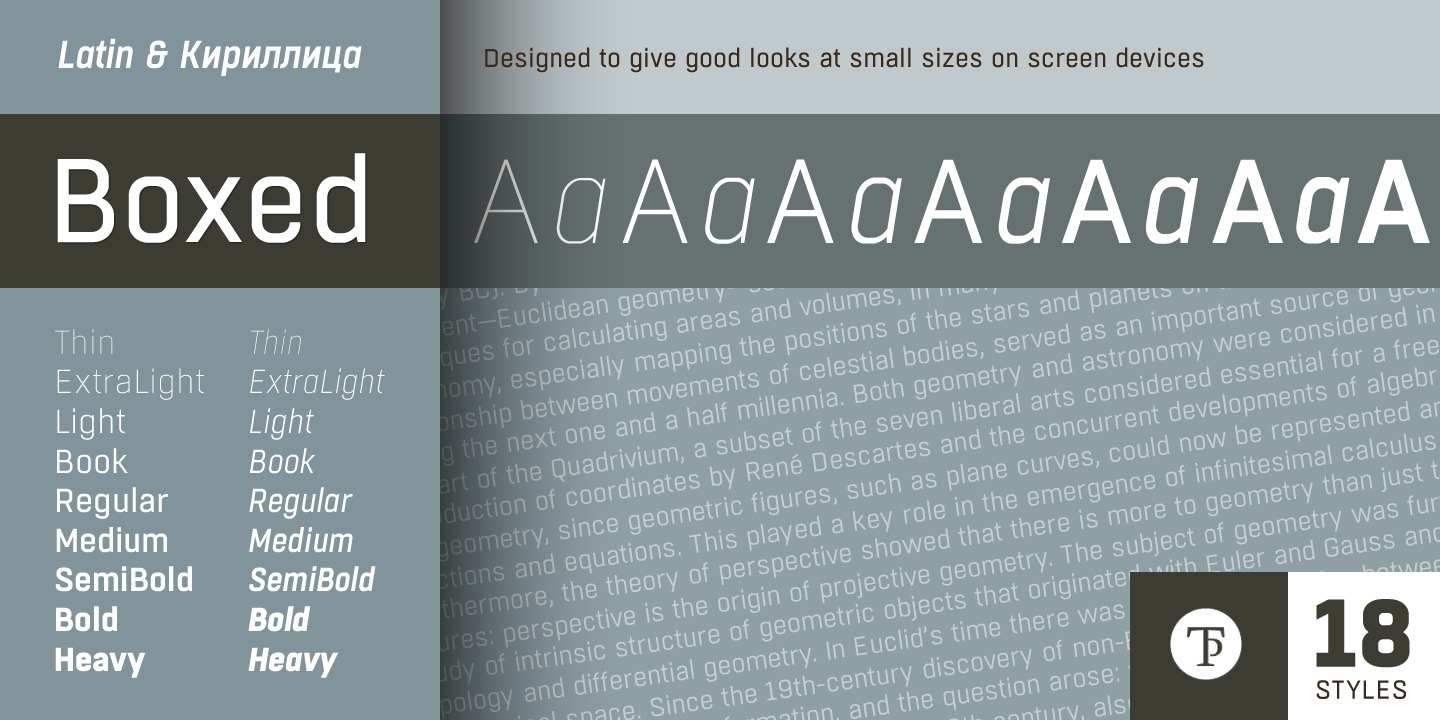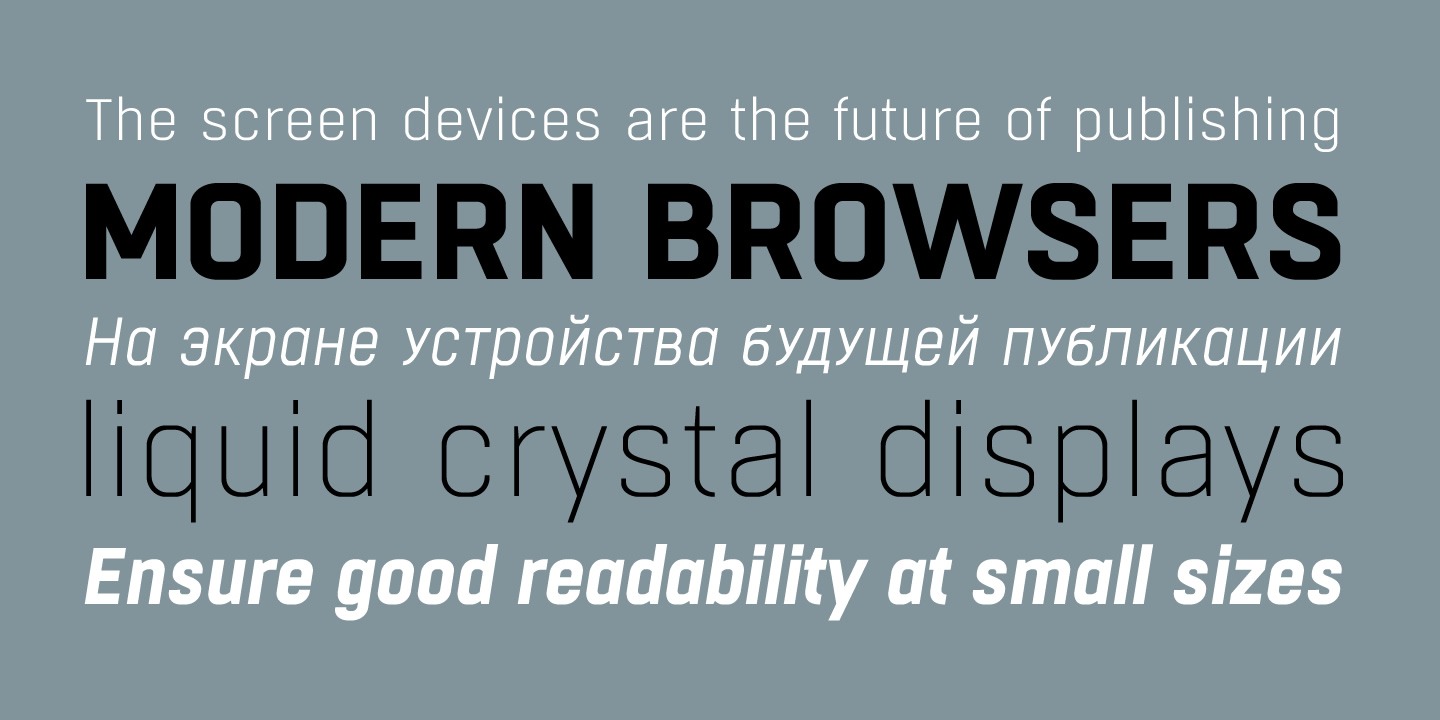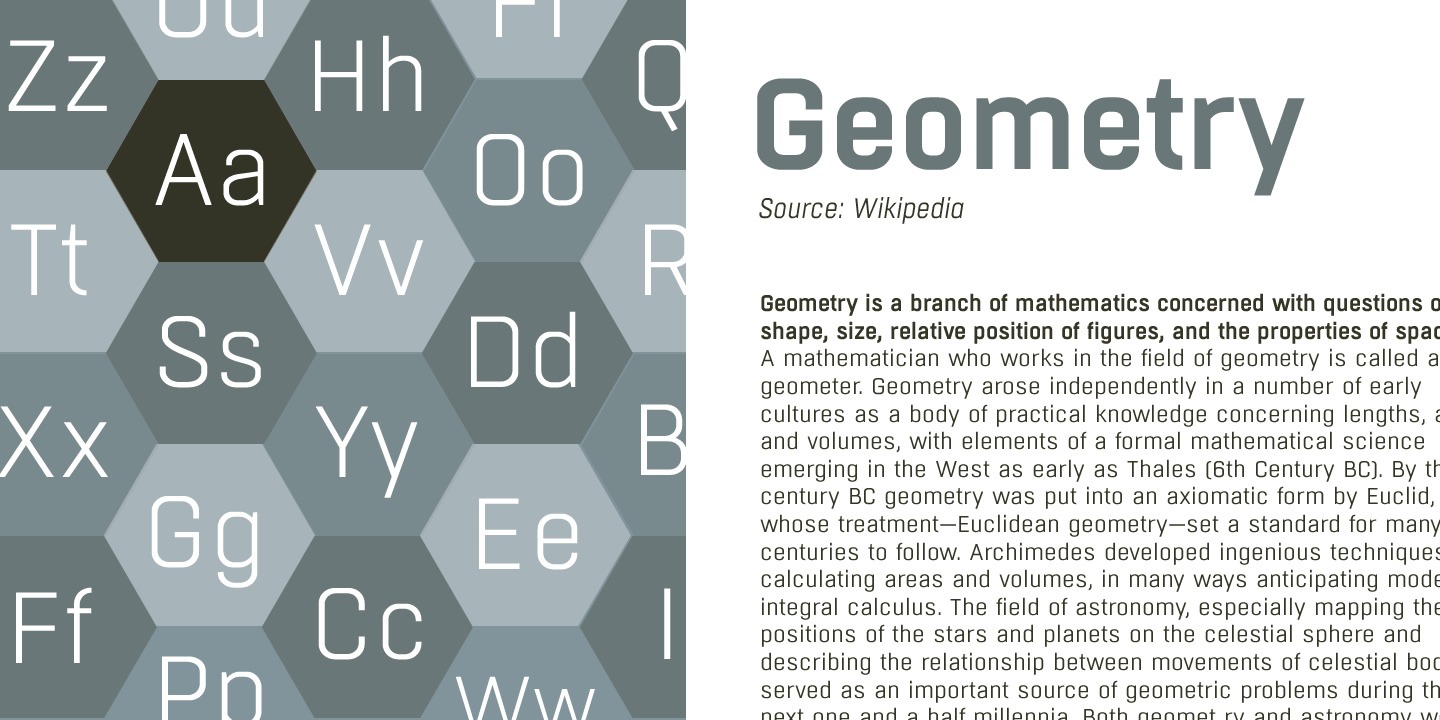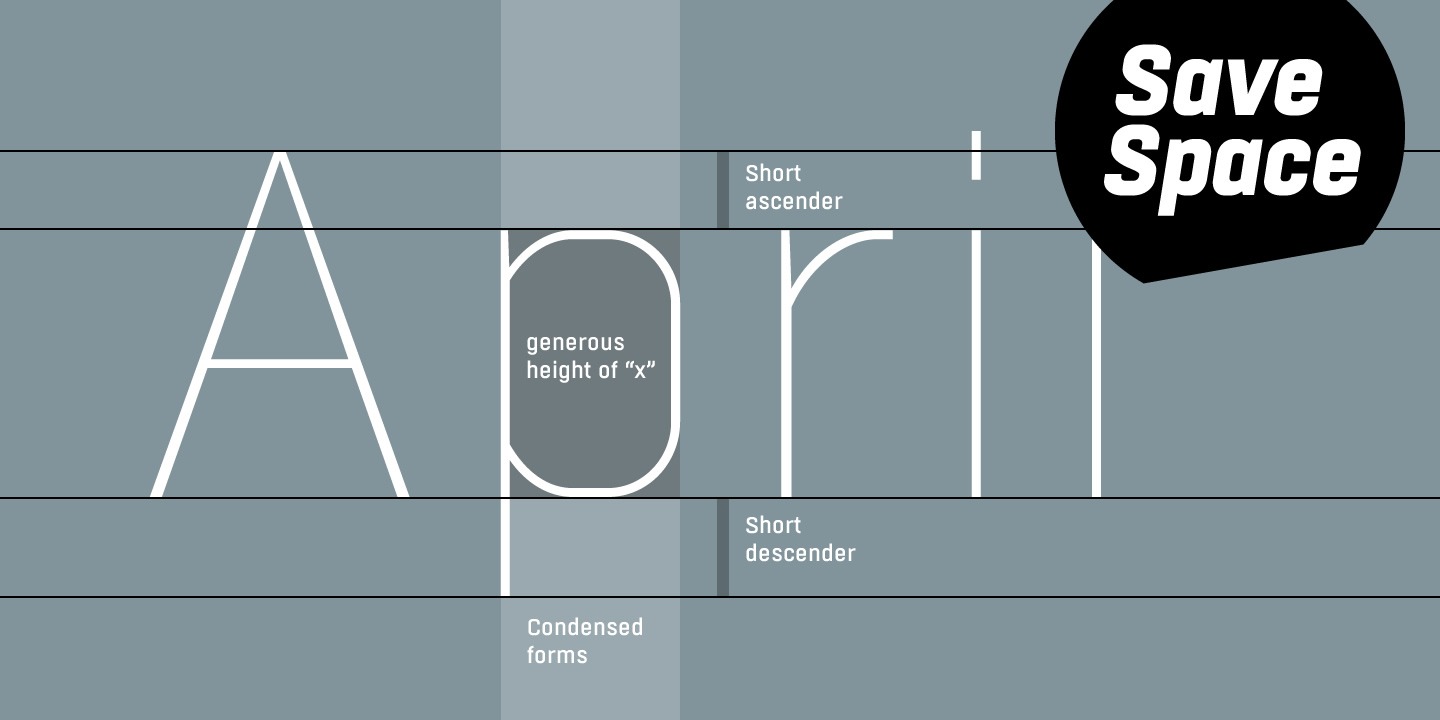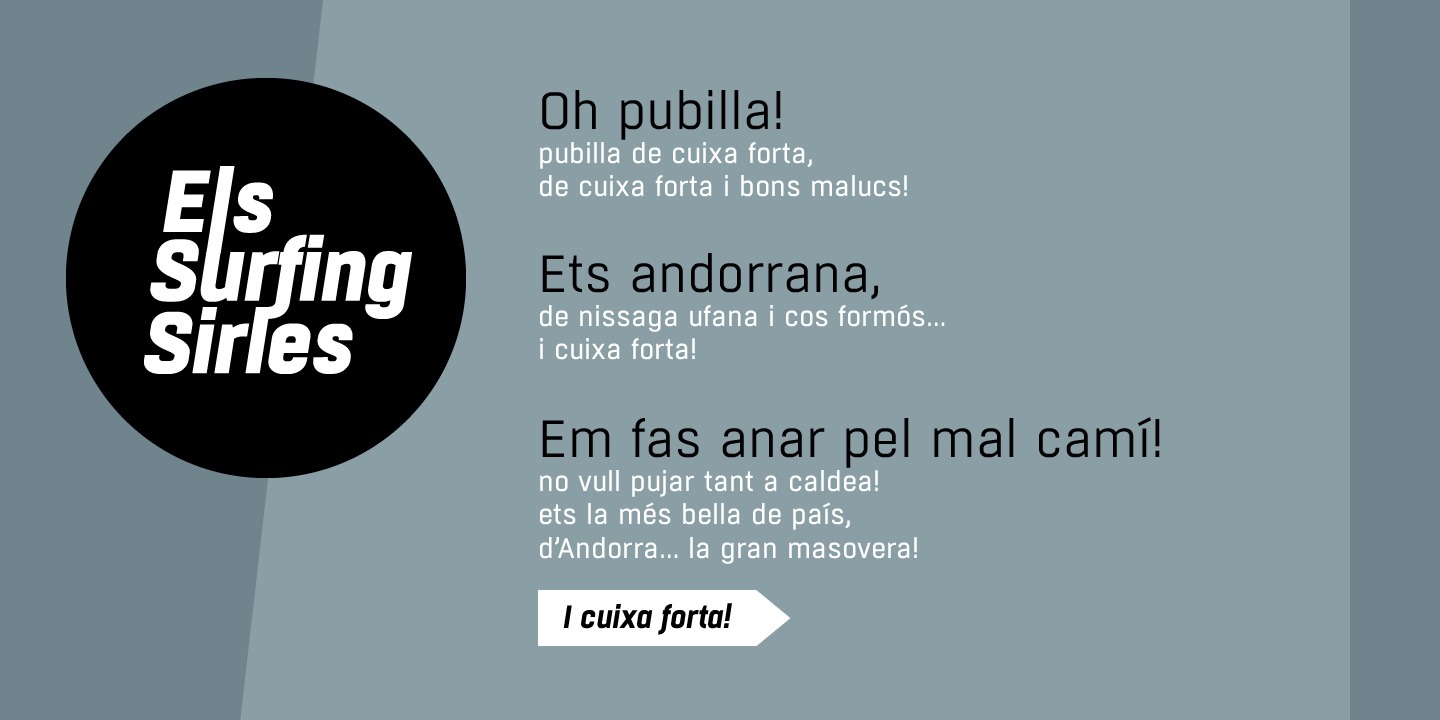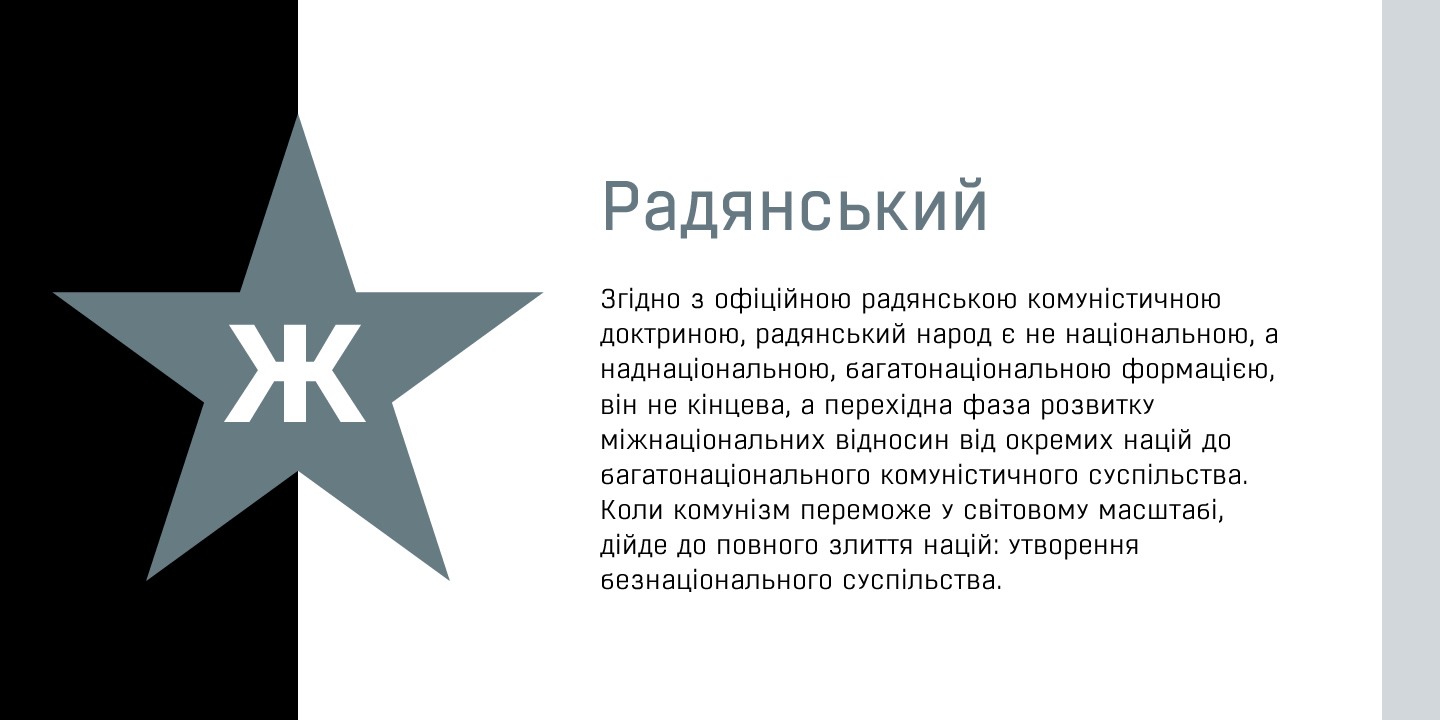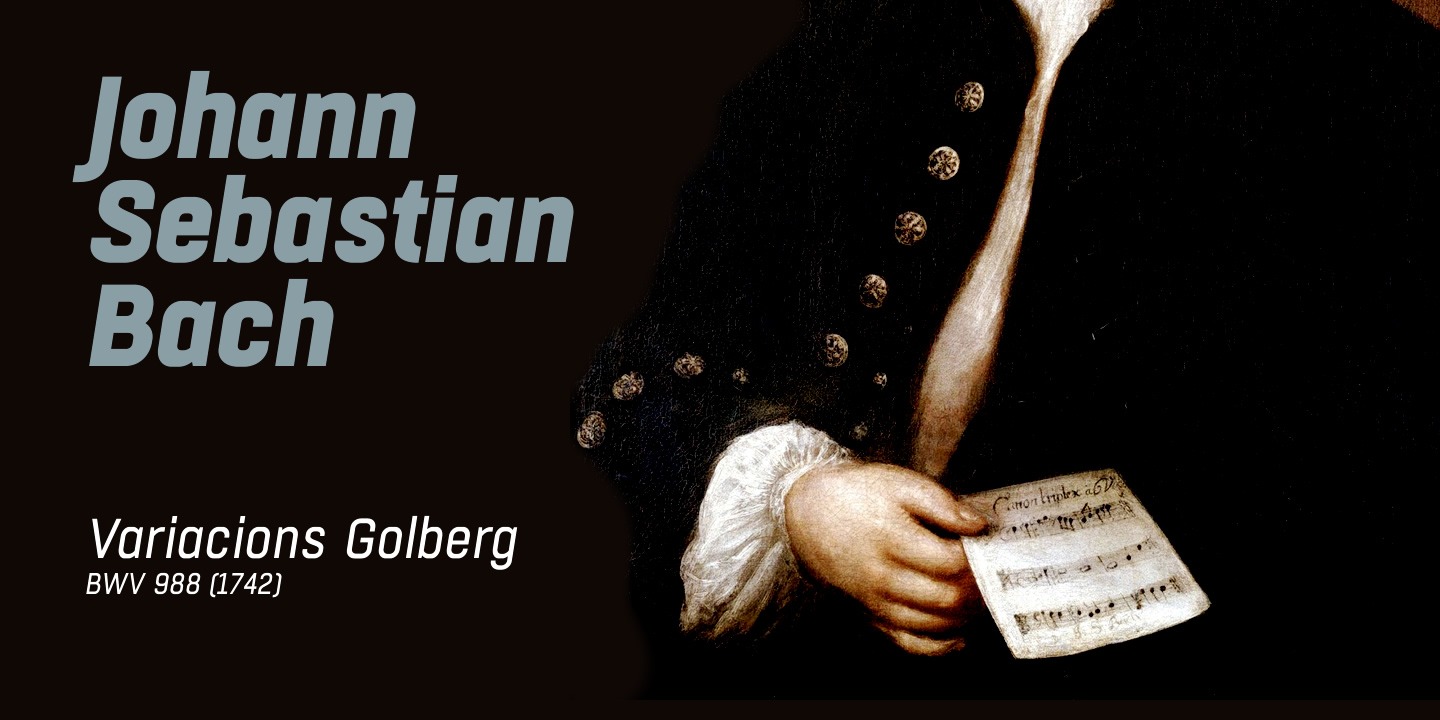
Boxed Regular Font by Tipo Pèpel
Boxed typography is a new and extensive 18 weight typeface, brightly conceived and designed to look good on small screen devices, but offering also enlightened looks on paper. The semi-modular geometric font shapes seek to be fully responsive to the grid of screen«s pixels to deliver a crisp, fluid reading rate.
Due to its extensive range of weights and subtle difference in thickness, compensating for the stain of characters between different CSS styles is really easy.
It offers an extensive set of Latin characters, even the Cyrillic.